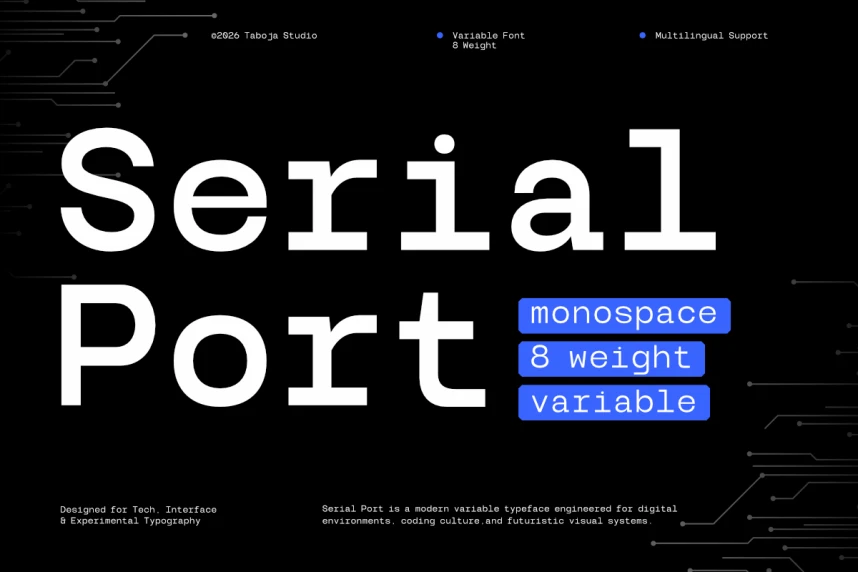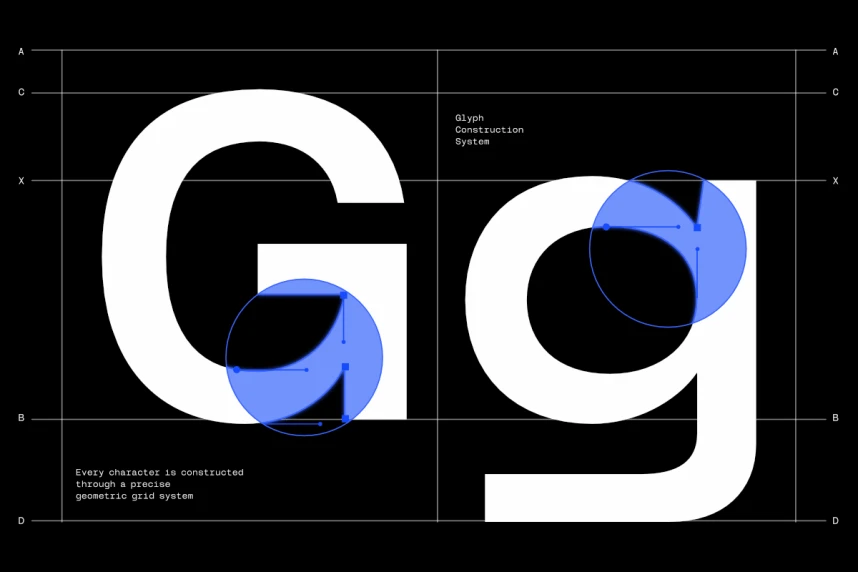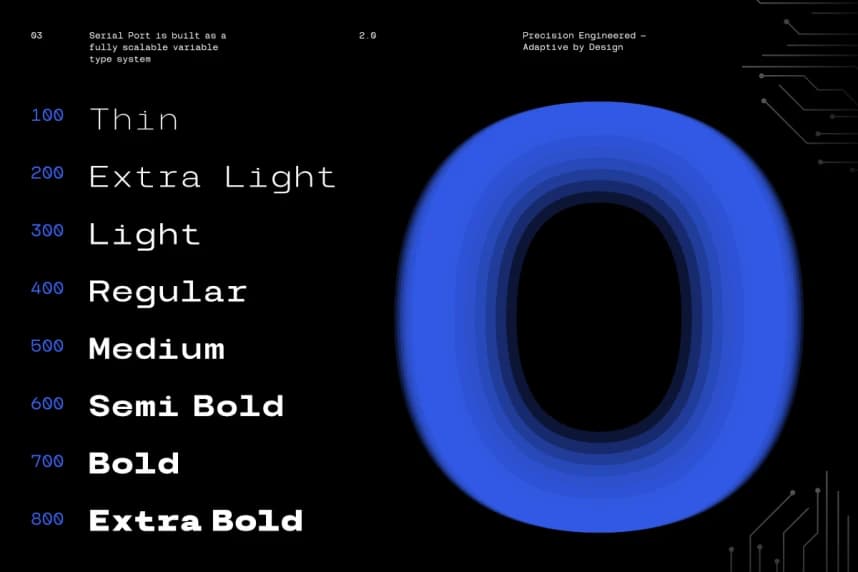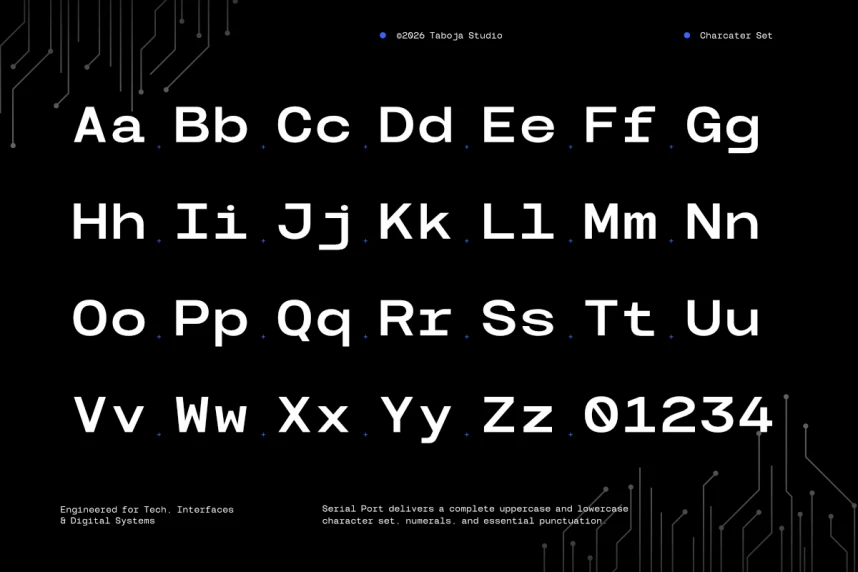
TBJ Serial Port Font
TBJ Serial Port Font is a modern monospace typeface developed with a focus on clarity, consistency, and practical use in digital environments. It draws from the structured nature of traditional monospace fonts
- Monospace